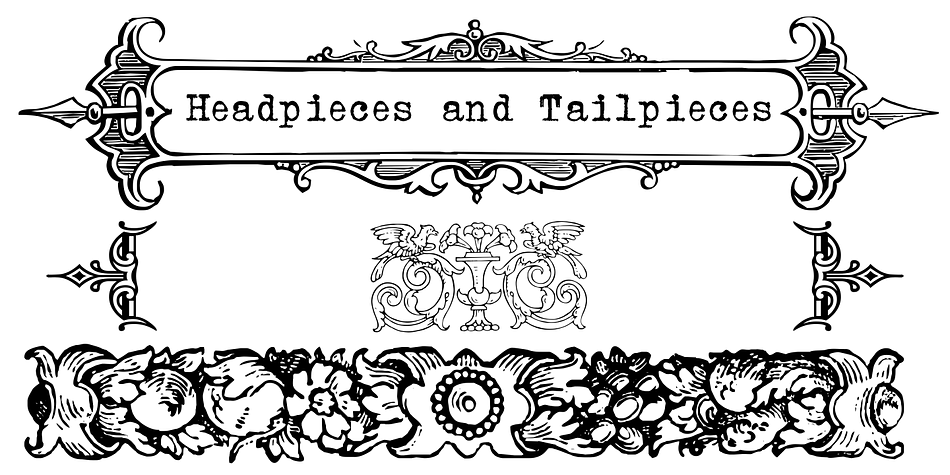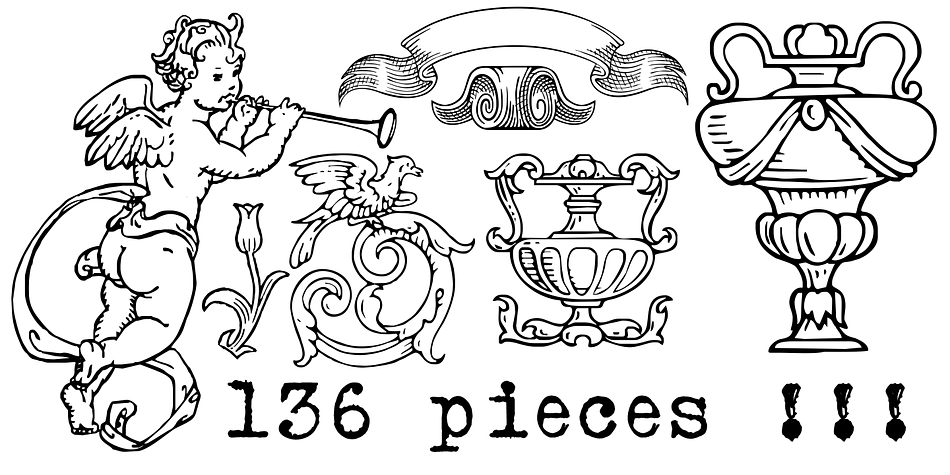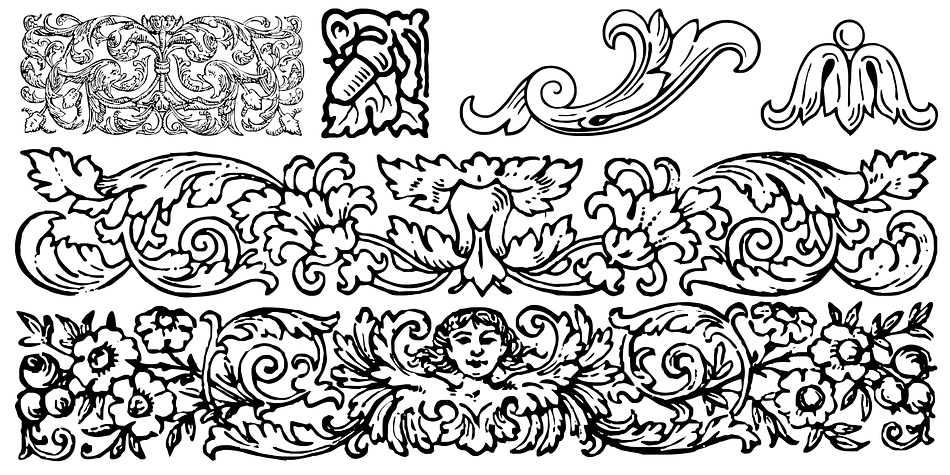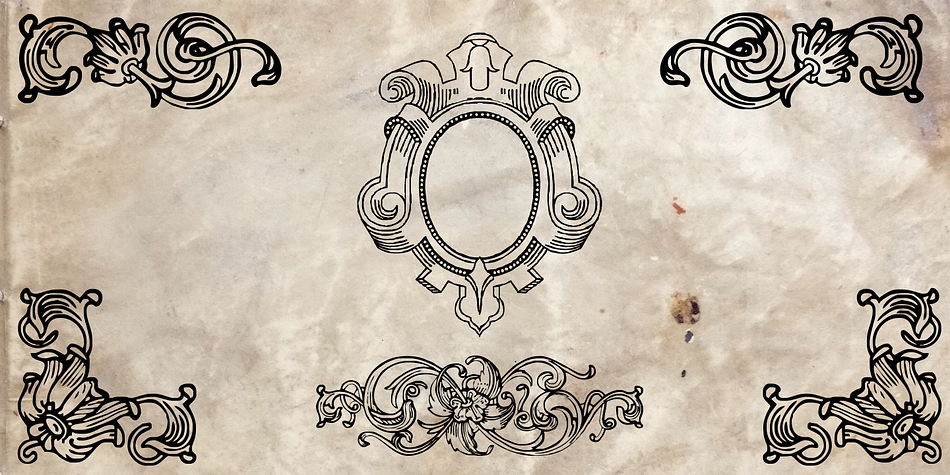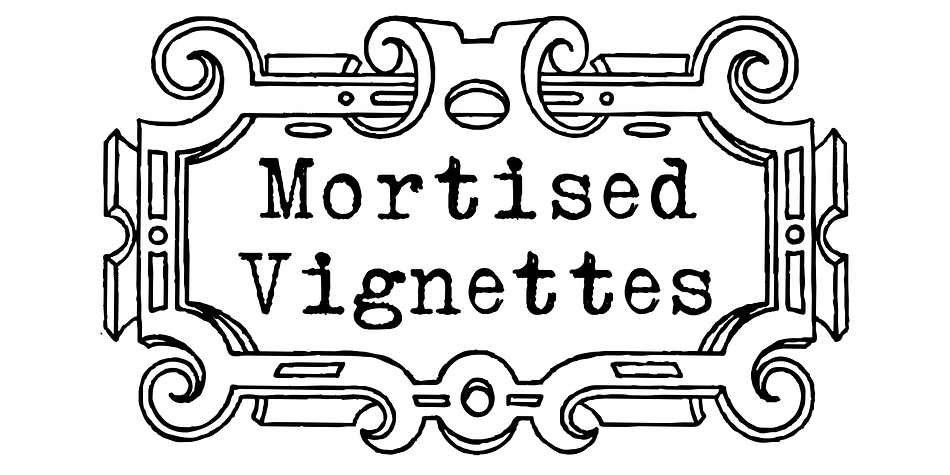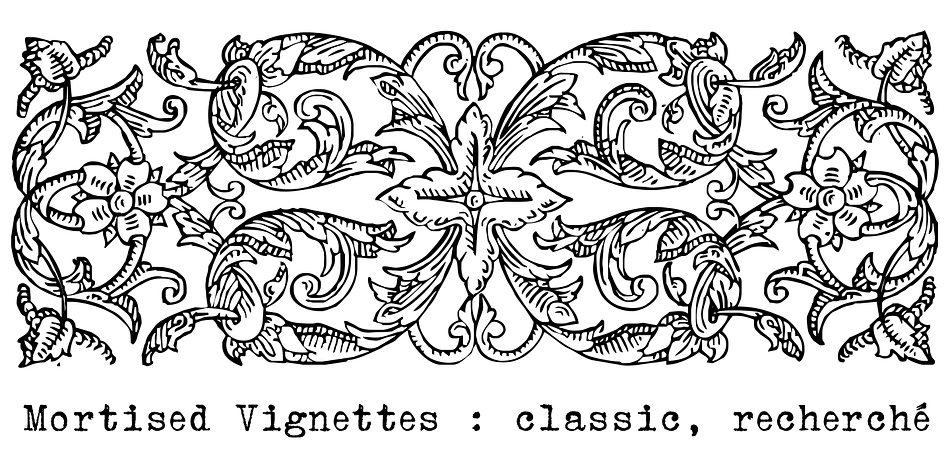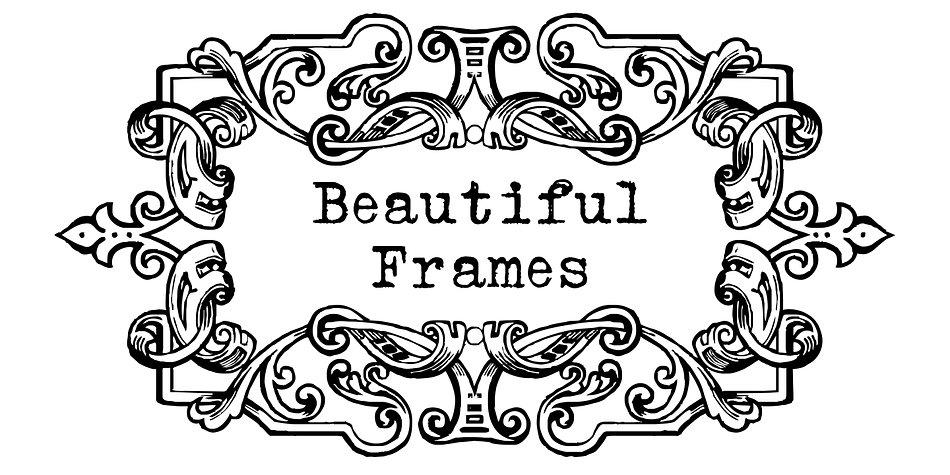
Mortised Vignettes is a dingbat font published by Intellecta Design.
Mortised Vignettes is a set of classic decorative elements researched in the victorian heritage typography. A collection of 136 beautiful ornaments to make everything you need : frames, borders, headpieces, tailpieces, fleurons, tags, with a classic vintage feeling.